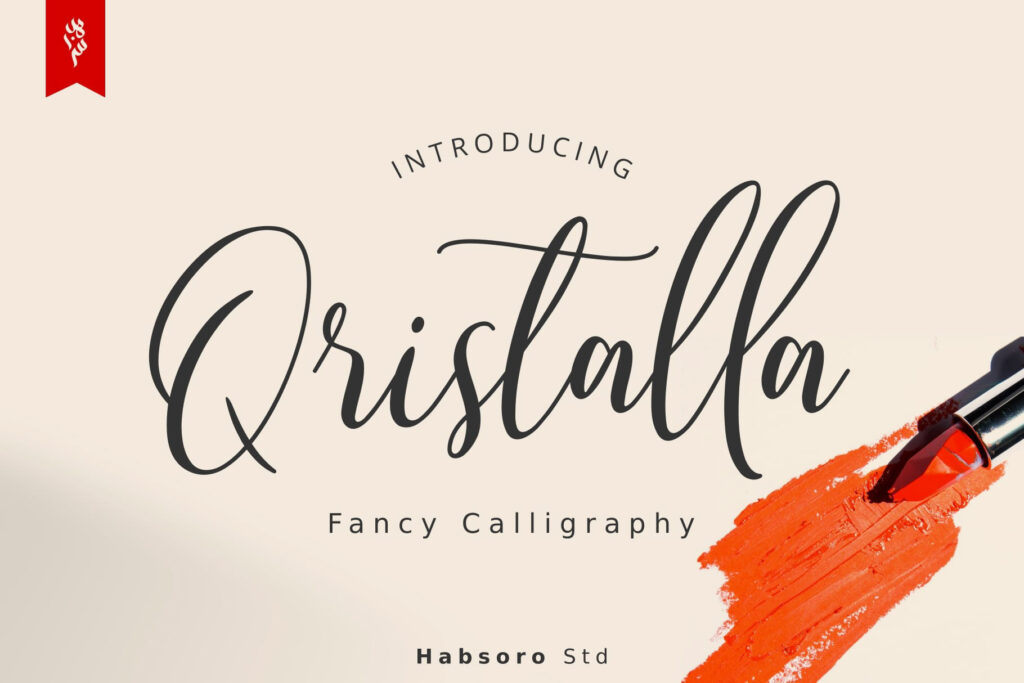
Qristalla is an elegant script font. This font was carefully crafted and inspired by fashion brands in the world. It creates an elegant, modern, luxurious and elegant look in design.